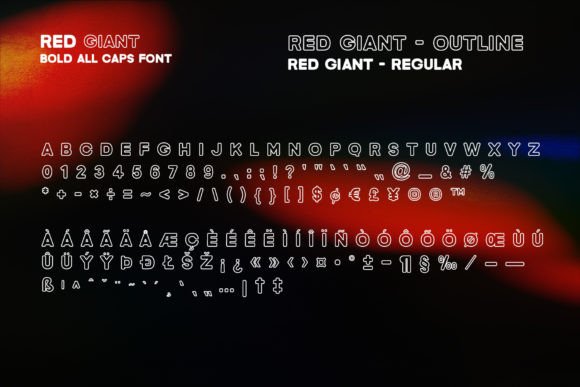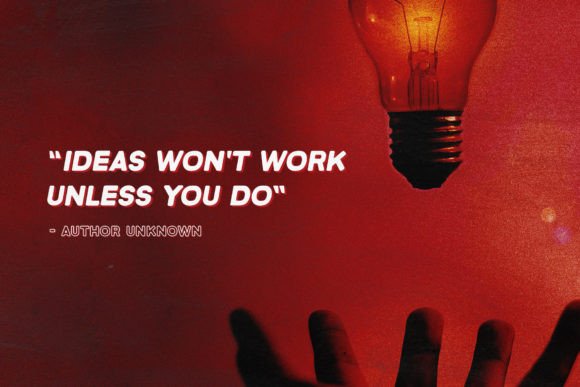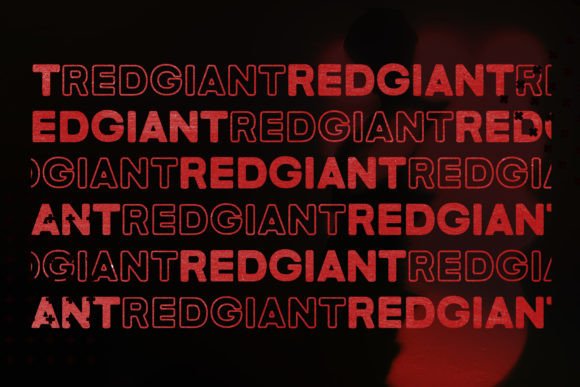
Introduction to Red Giant Font
This multilingual sans-serif font is perfect for titles, quotes, logos, editorial design, packaging, and web design.
It fits every graphic design or typography-related project Give an extra twist and combine Red Giant regular with Red Giant outline.
Red Giant Font offers exceptional quality and versatility, making it a valuable addition to your design toolkit. Whether you’re creating for personal projects or commercial use, Red Giant Font delivers professional results.